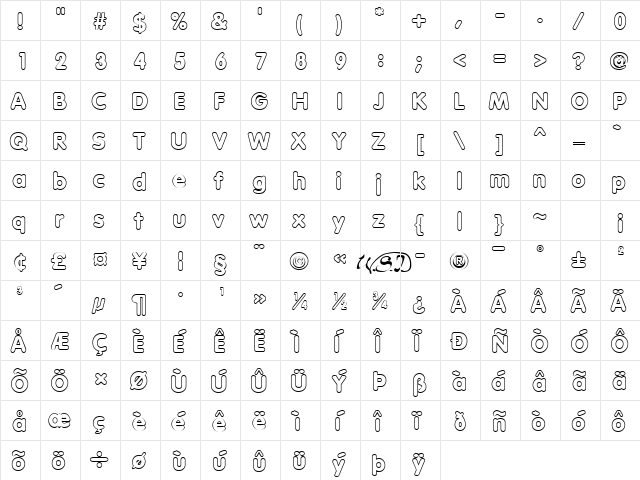
Vagabond Heavy Outline Regular Font Preview
Vagabond Heavy Outline Regular
Design Context for Vagabond Heavy Outline Typeface
Vagabond Heavy Outline brings ornamental detail and strong personality to headlines and identities, where visual impact matters more than quiet functionality.
Font Pairing: Pair with a clean neutral sans-serif for body copy to let Vagabond Heavy Outline's character lead without overwhelming the composition.
Pro Tip: Treat Vagabond Heavy Outline as the centrepiece of your typographic hierarchy. One strong heading set in a decorative face can carry an entire layout.